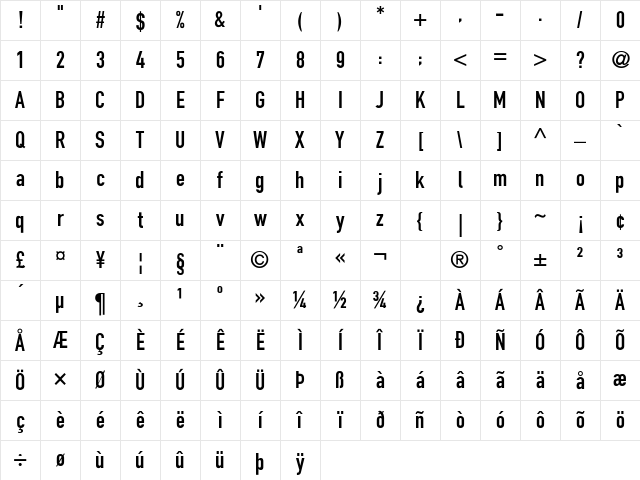
DINEngschrift-Alternate Regular
Design Context for DINEngschrift-Alternate
DINEngschrift-Alternate is a composed and adaptable typeface that performs quietly and consistently across a wide range of design contexts.
Pro Tip: Use DINEngschrift-Alternate in both headline and body roles to test its range before committing to a single application.